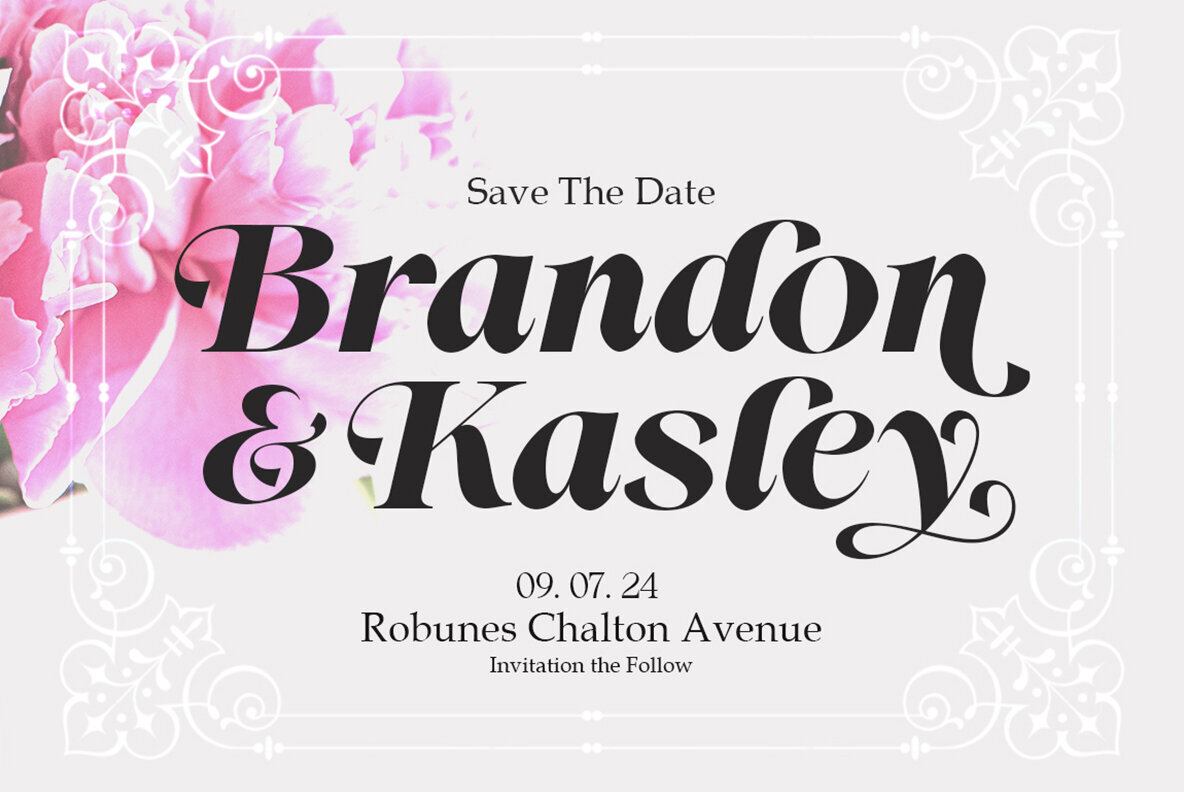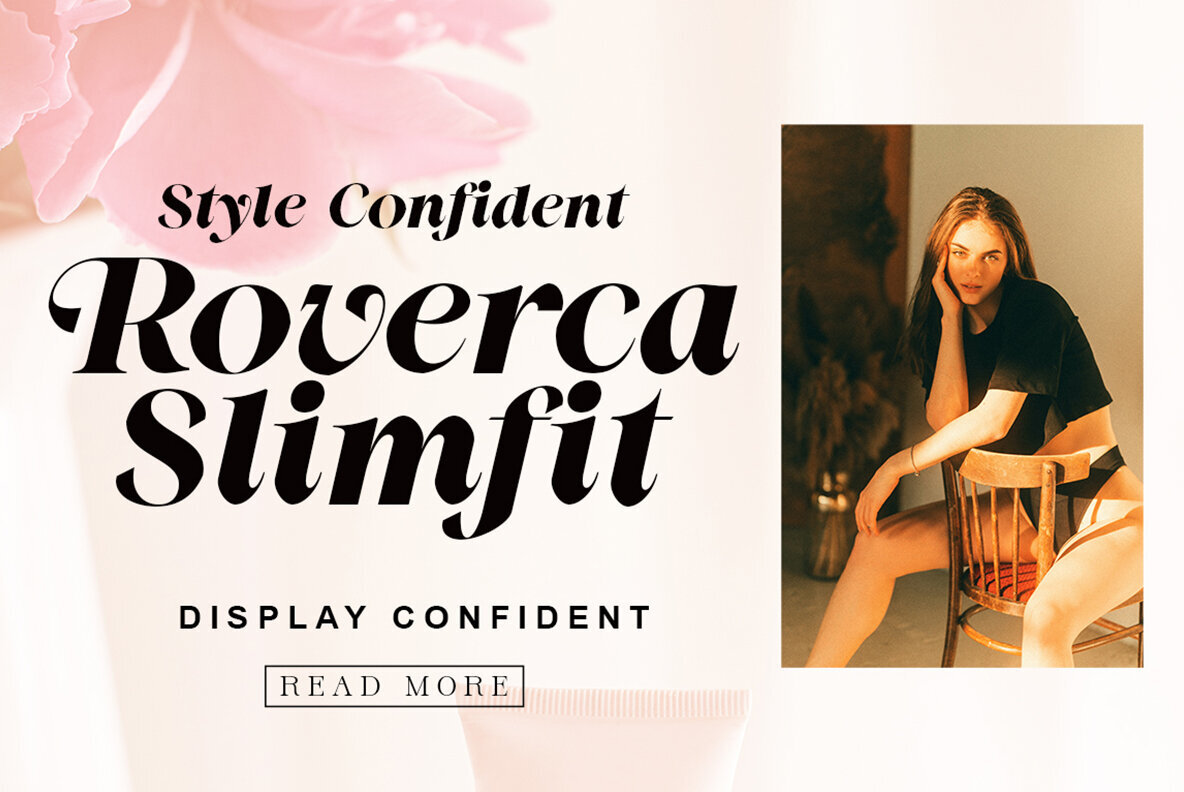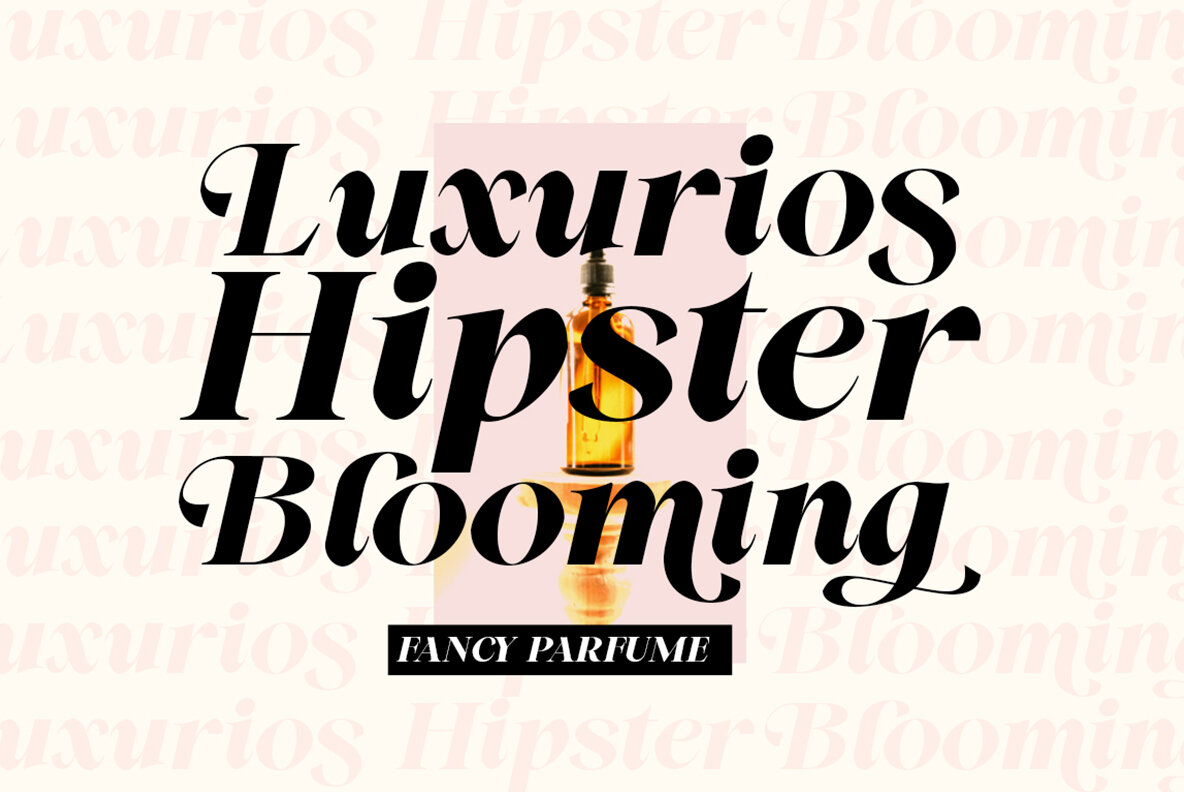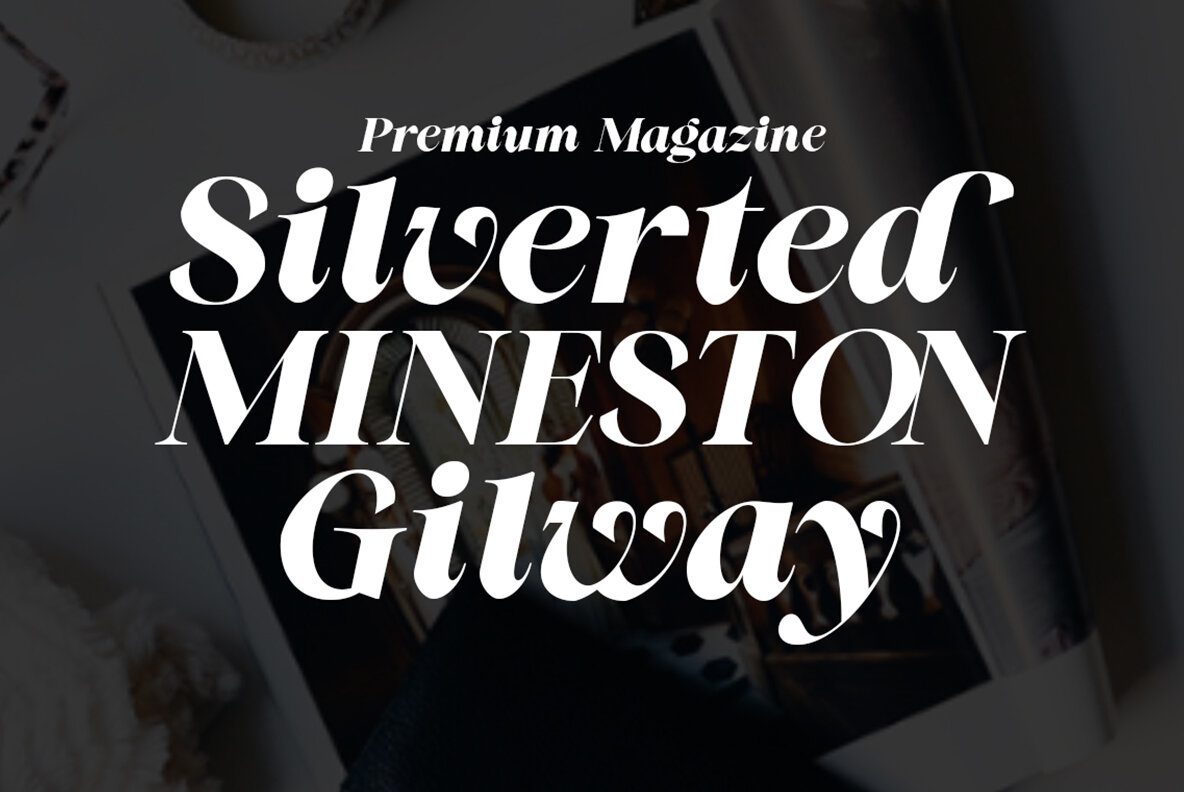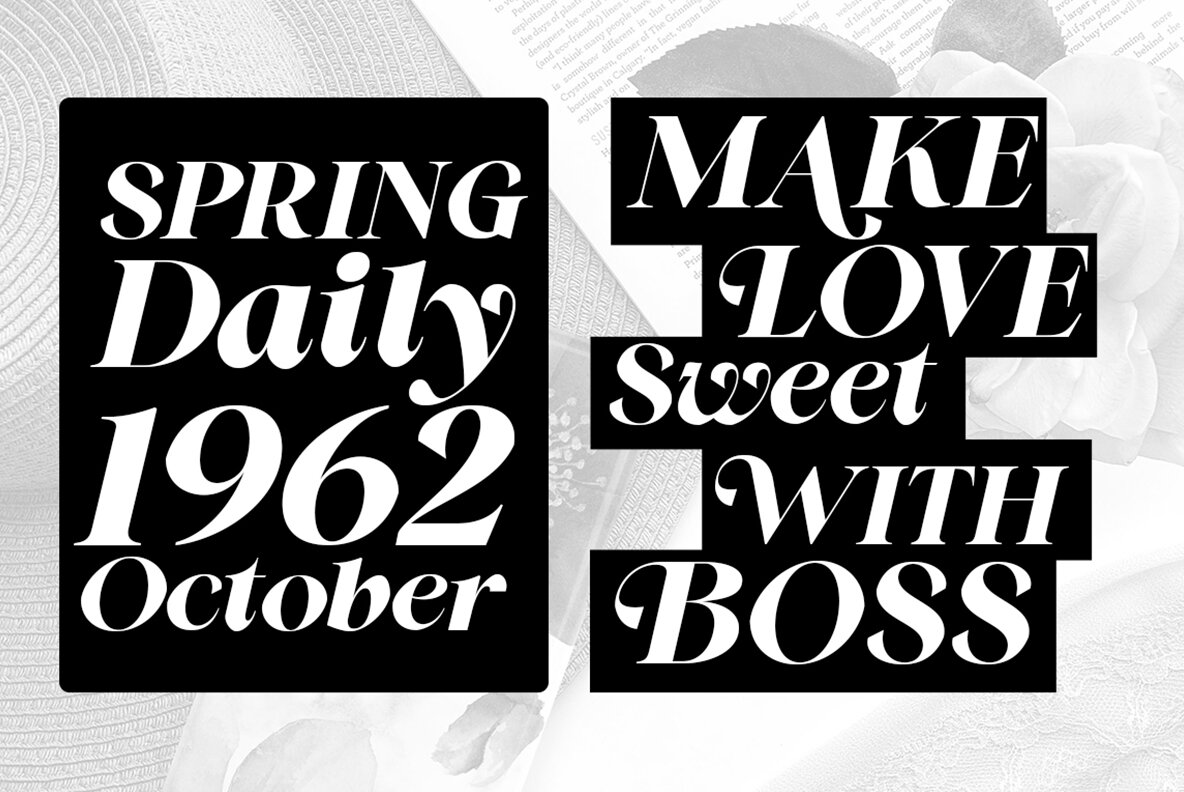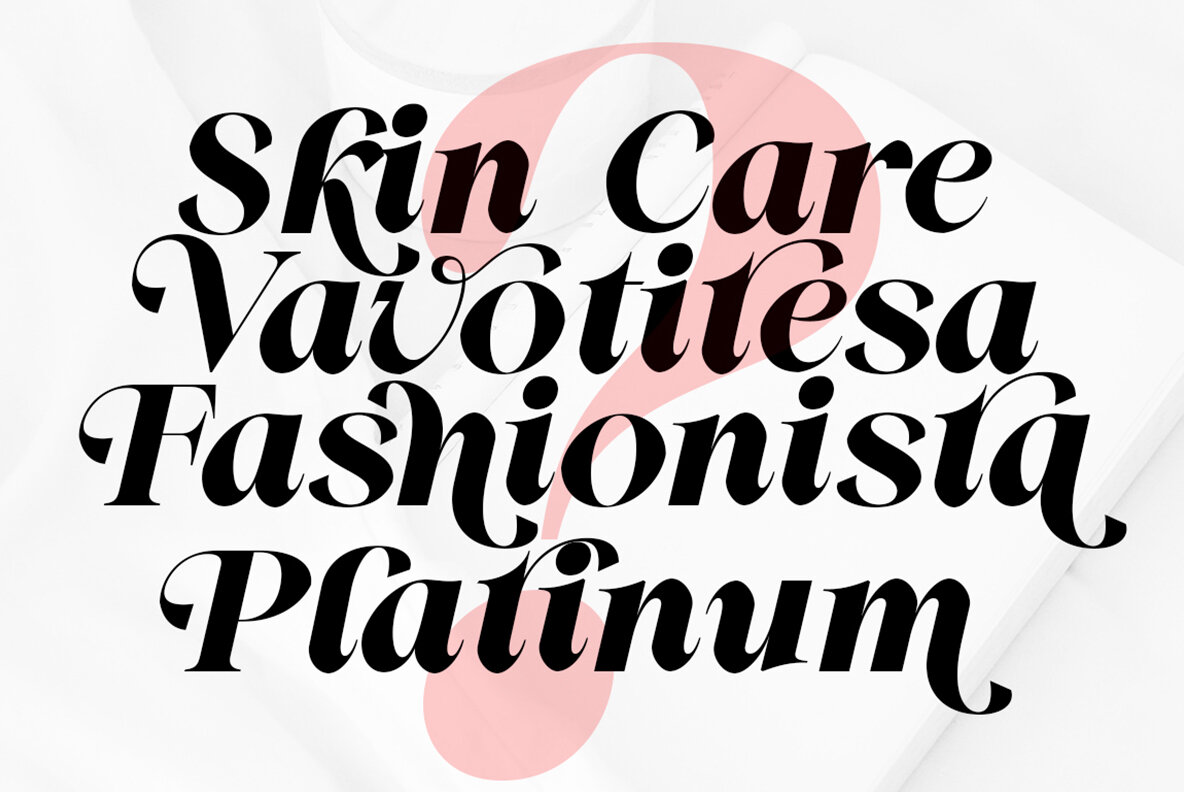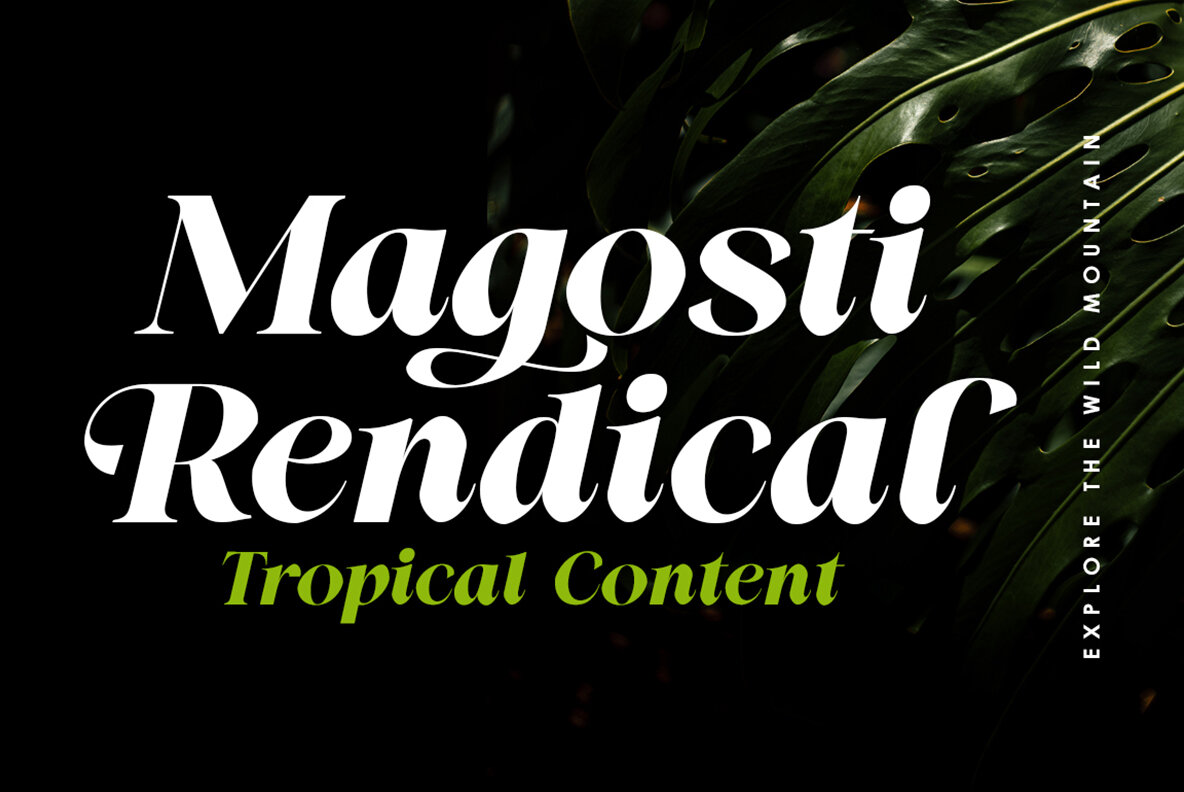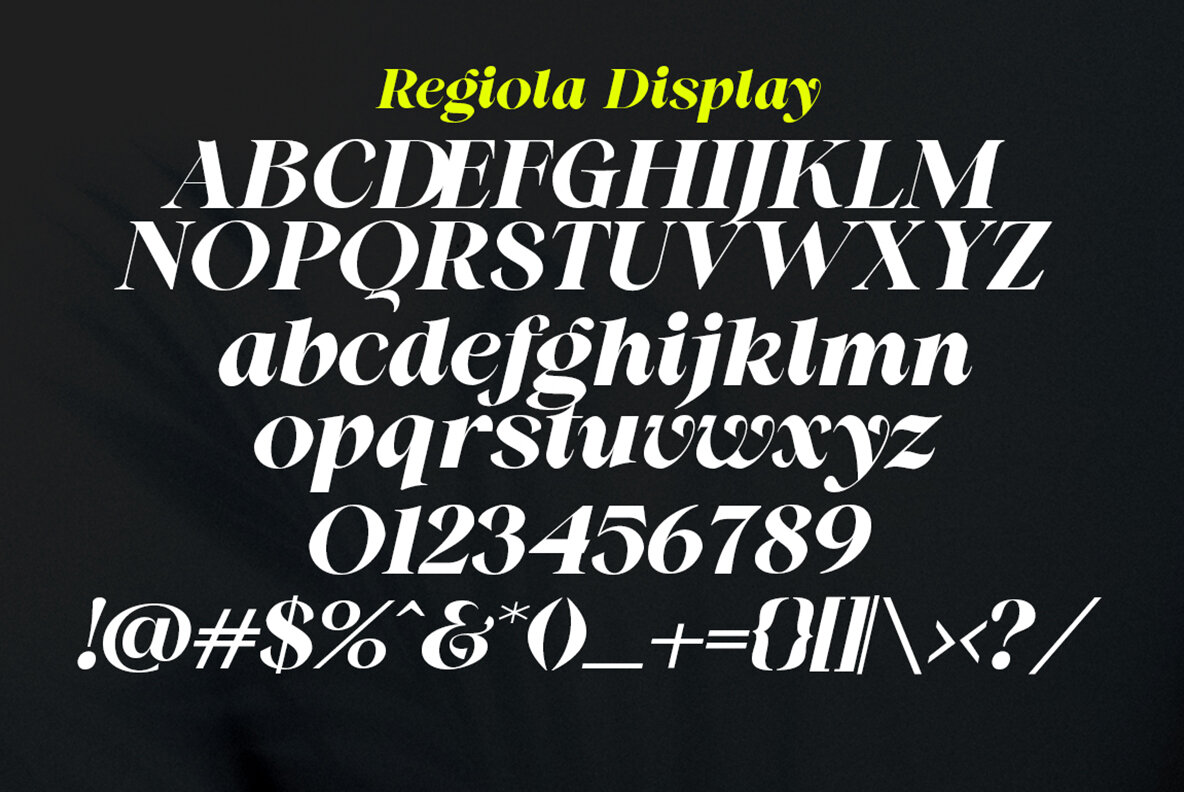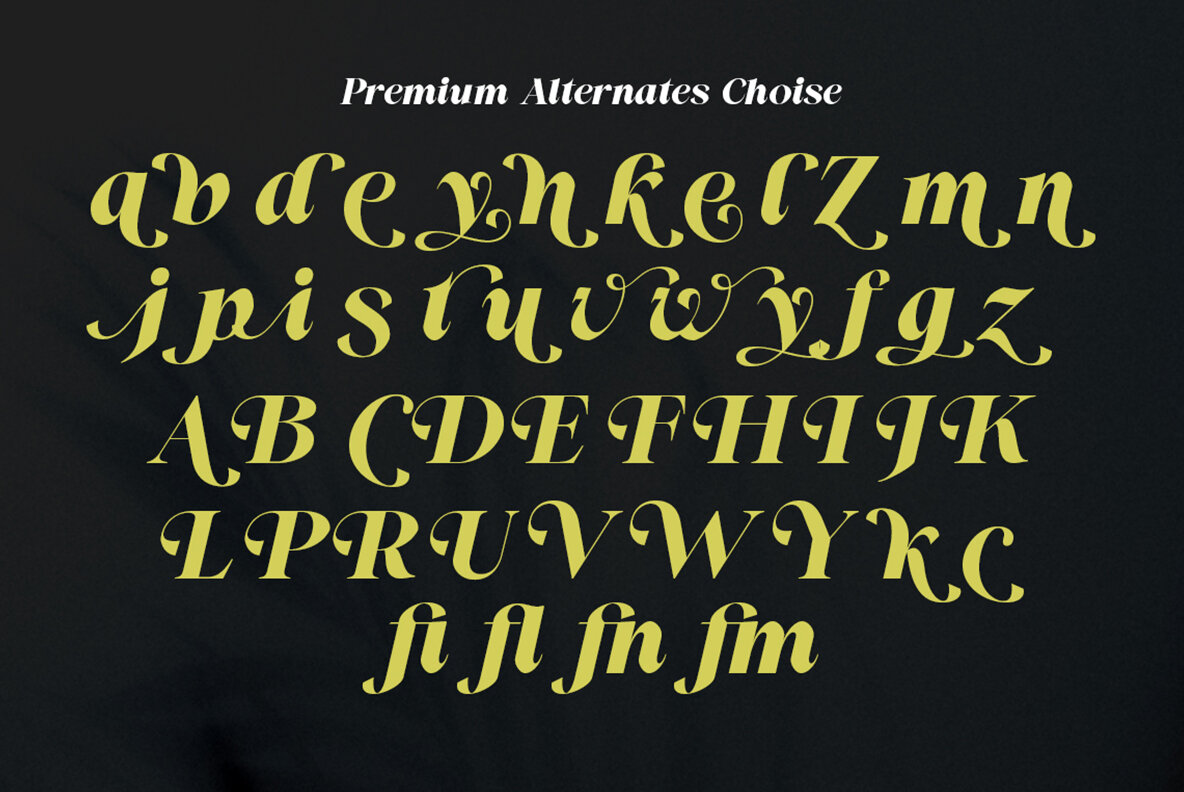
Regiola Font
Regiola Display We are proud to present our new font. The new natural Italic serif with a classy and modern style makes this font look elegant, natural, stylish. Regiola Display is perfect for invitations, logos & branding, photography, advertising, watermarks, social media posts, product packaging, product designs, labels, wedding designs, stationery, special events, or anything needed to create a theme.